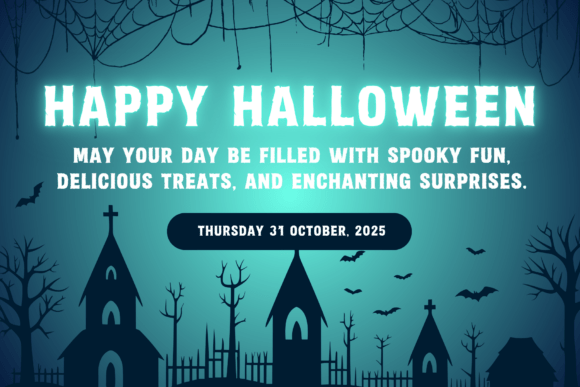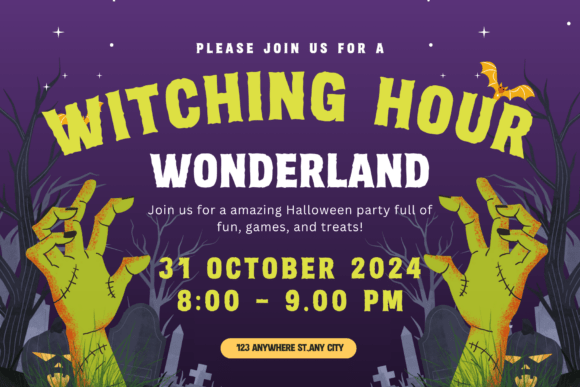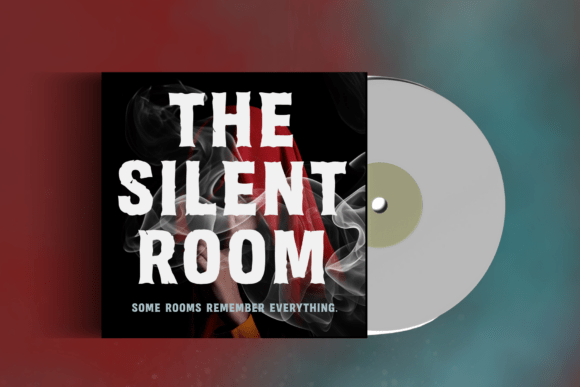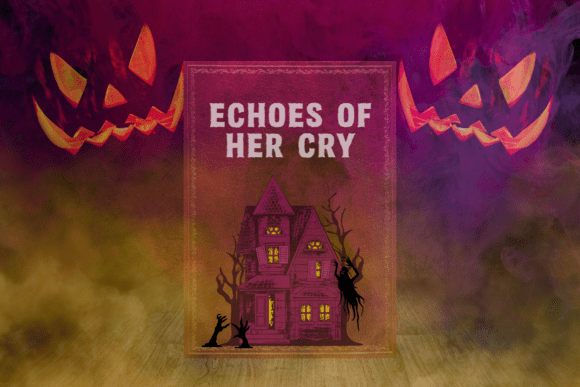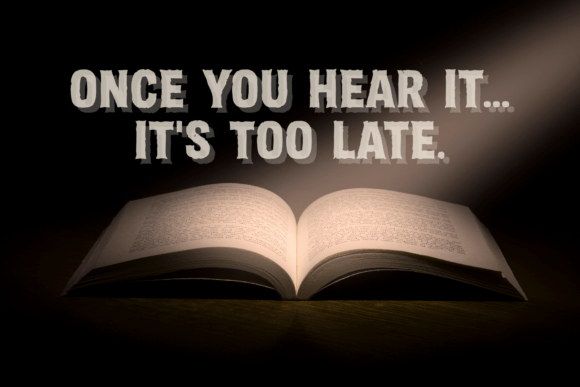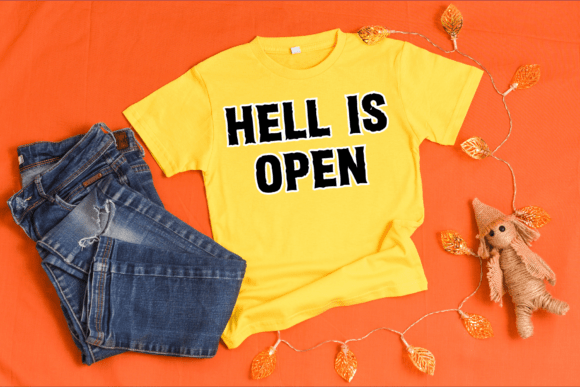
Unleash the Horror with Ghostmark Font: The Ultimate Choice for Spooky Designs
Are you a designer or crafter looking for a font that can add a chilling edge to your horror movie posters, eerie titles, or any design that requires a supernatural touch? Look no further than Ghostmark Font. This bold, haunted typeface is specifically crafted to evoke the feeling of something left behind — a mark from the other side. With its jagged outlines and distressed texture, Ghostmark Font is the perfect choice for creating spooky and eerie designs that will leave your audience screaming for more.
The Inspiration Behind Ghostmark Font
Ghostmark Font is inspired by the dark and eerie atmosphere of horror movies and haunted houses. Its creators wanted to design a font that would capture the essence of the supernatural and the unknown. The result is a font that is both bold and haunting, with a gritty texture that gives it a shadowy presence. Whether you’re designing a poster for a horror movie or creating a title for a spooky story, Ghostmark Font is the perfect choice.
Key Features of Ghostmark Font
So, what makes Ghostmark Font so special? Here are some of its key features:
- Jagged Outlines: The font’s jagged outlines give it a rough and distressed look, evoking the feeling of something that’s been left behind.
- Distressed Texture: The font’s texture is rough and gritty, giving it a shadowy presence that’s perfect for creating spooky designs.
- Bold and Haunting: Ghostmark Font is a bold and haunting typeface that’s perfect for creating eye-catching designs.
- Supernatural Intensity: The font’s design is meant to evoke the supernatural and the unknown, making it perfect for horror movie posters, eerie titles, and other spooky designs.
Uses for Ghostmark Font
Ghostmark Font is a versatile typeface that can be used for a variety of design projects. Here are some ideas to get you started:
- Horror Movie Posters: Create eye-catching posters for horror movies with Ghostmark Font.
- Eerie Titles: Use Ghostmark Font to create spooky titles for stories, poems, or other written works.
- Halloween Designs: Create spooky designs for Halloween, such as invitations, flyers, or social media graphics.
- Graphic Novels: Use Ghostmark Font to create bold and haunting titles for graphic novels.
Tips for Using Ghostmark Font
Here are some tips for using Ghostmark Font in your designs:
- Use it sparingly: Because Ghostmark Font is so bold and haunting, it’s best to use it sparingly. Use it for titles or headings, and a simpler font for body text.
- Experiment with colors: Ghostmark Font looks great in bold, bright colors. Experiment with different colors to find the one that works best for your design.
- Combine it with other fonts: Ghostmark Font can be combined with other fonts to create a unique and eye-catching design.
Ghostmark Font is a bold, haunted typeface that’s perfect for creating spooky and eerie designs. With its jagged outlines and distressed texture, it’s the perfect choice for horror movie posters, eerie titles, and other designs that require a supernatural touch. Whether you’re a designer or crafter, Ghostmark Font is a great addition to your font library. So why wait? Download Ghostmark Font today and start creating spooky designs that will leave your audience screaming for more.